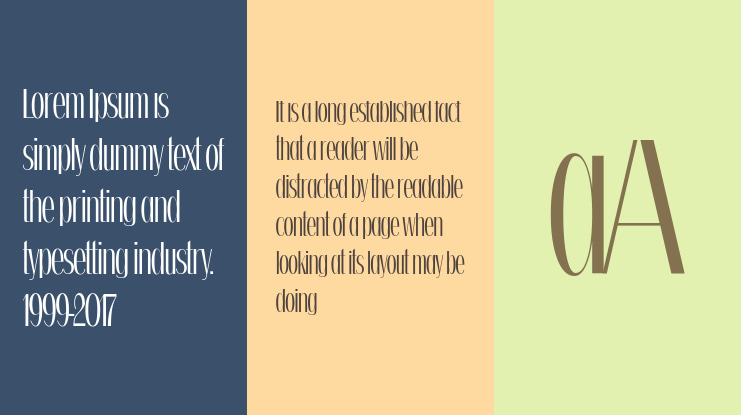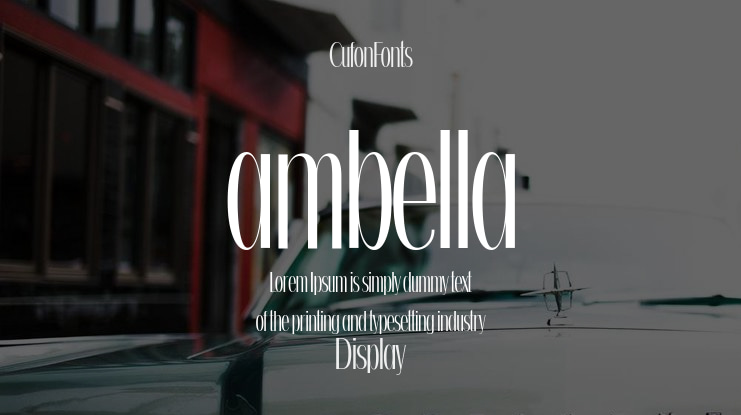
ambella Font Family
🎨 Font Name: AMBELLA by Minimalist Art Studio
🎨 Font description: Ambella is a tall sans serif with multilingual support—ideal for minimalist branding, editorial layouts, and fashion-forward packaging.